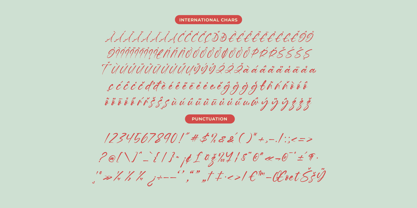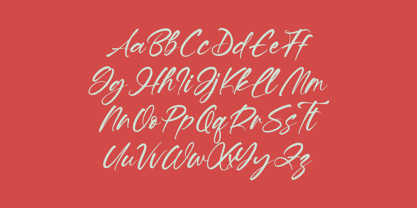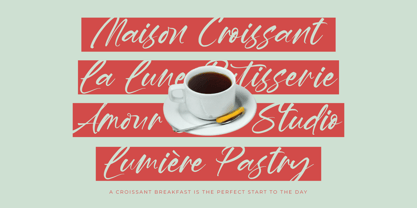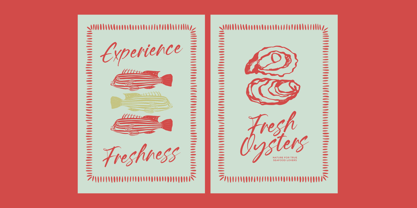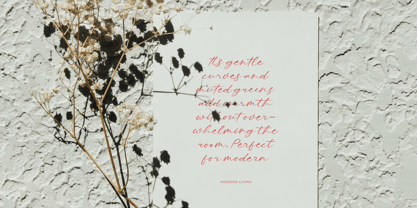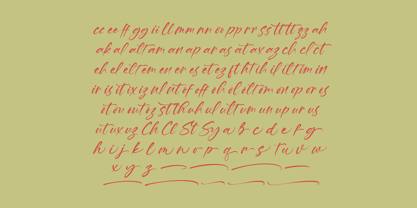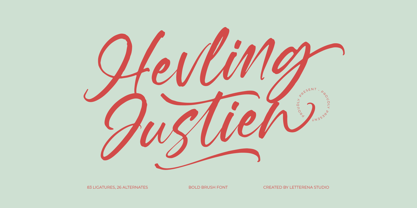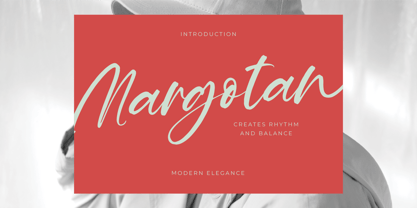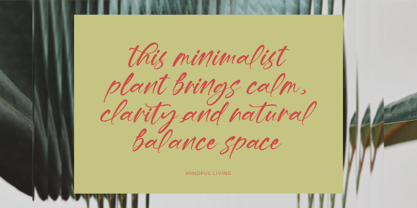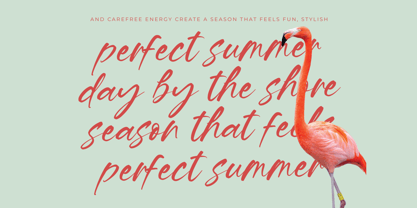
Hevling Justien
by Letterena Studios
The Hevling Justien Font Family was designed by Heru Utama Putra and published by Letterena Studios. Hevling Justien contains 2 styles and family package options. More about this family
Hevling Justien - Bold Brush Font , from Letterena, is a Luxury Script font, suitable for any projects such as: logos, branding projects, homeware designs, product packaging, mugs, quotes, posters, shopping bags, t-shirts, book covers, name card, invitation cards, greeting cards, label, photography, watermark, special events, and all your other luxury and beautiful projects that need a Luxury Script taste.